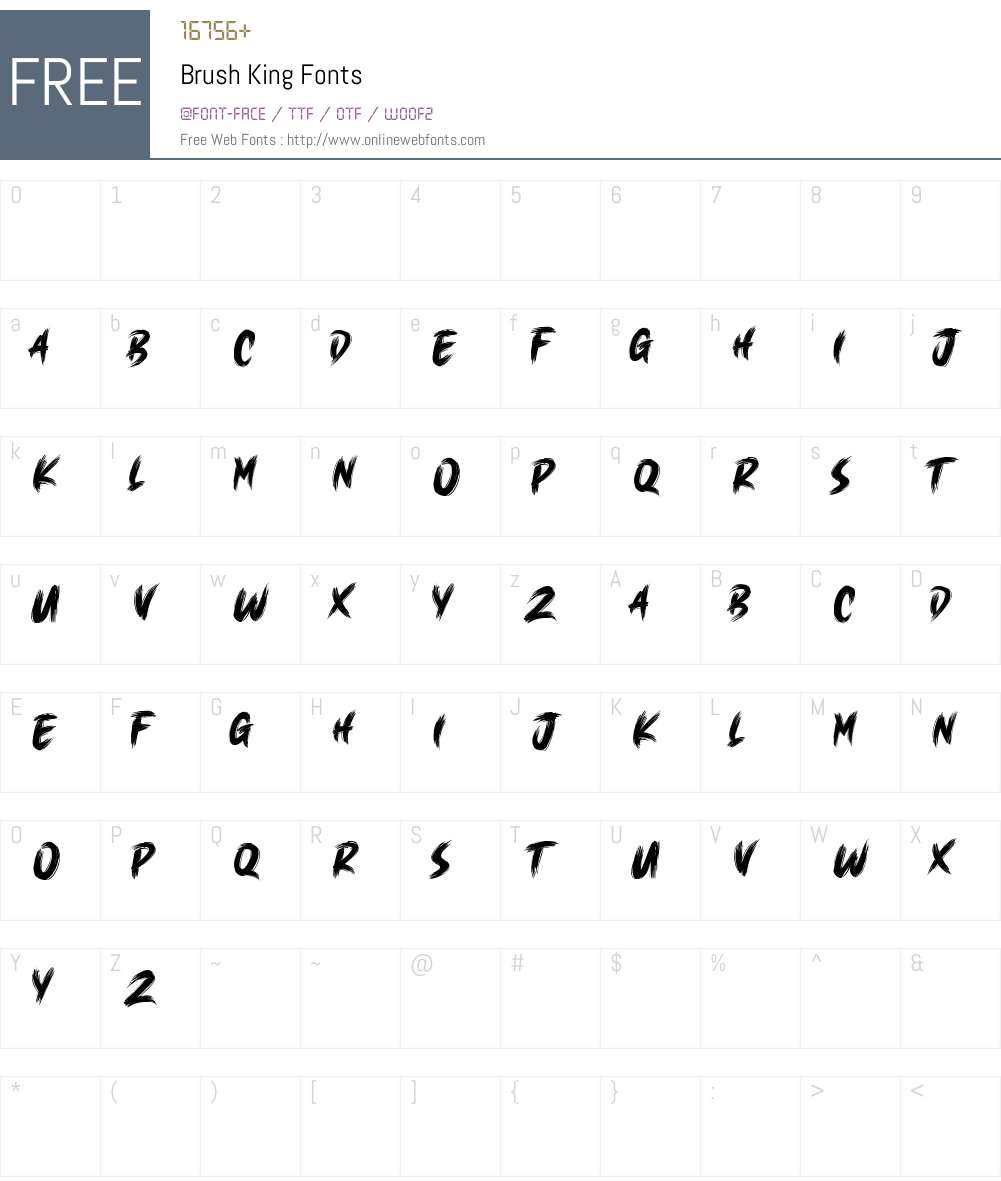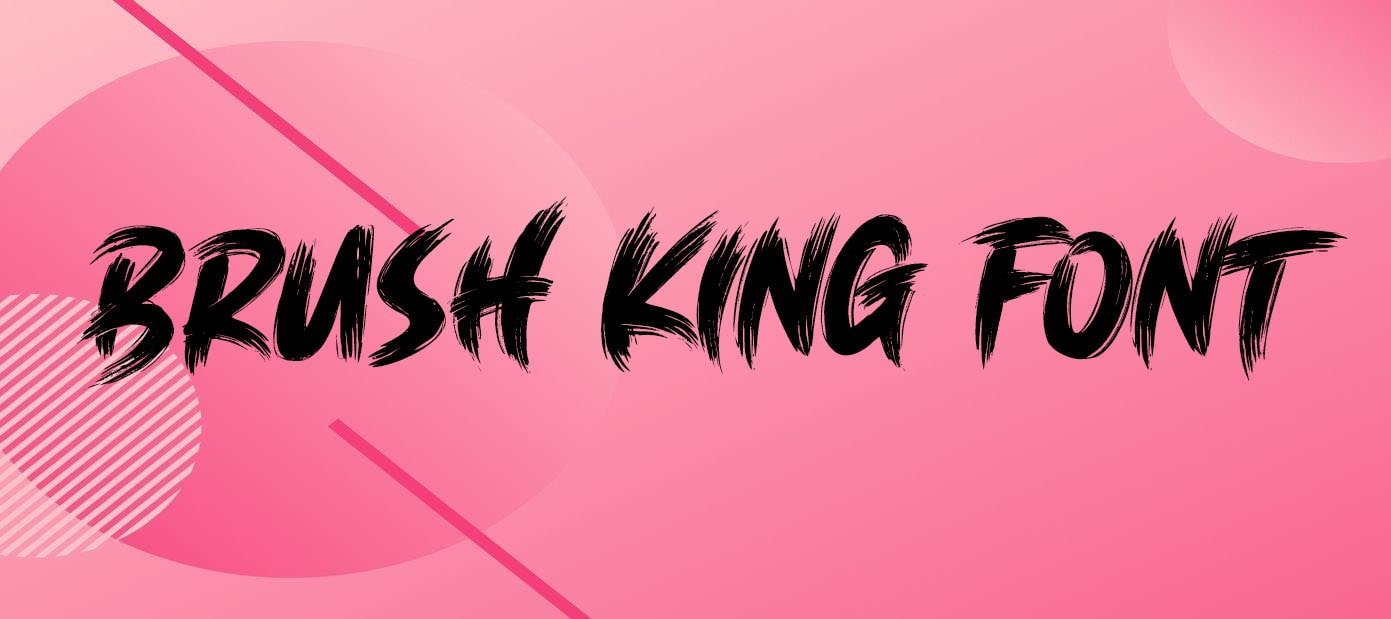
Brush King Font Numbers . It features extra attention to quick strokes and sharp details. This font is free for personal use. Brush king is a handwritten script font that features bold, flowing strokes that resemble brush strokes. Penggunaan font ini untuk keperluan komersil tanpa izin (dengan alasan apapun) akan dikenakan denda pelanggaran hak cipta $7000 atau sesuai dengan keputusan yang telah. Great for logo and other branding projects, art prints, posters or packaging design. Brush king font is a supercharged brush font bursting with energy. Font size brush king regular otf waterfall 117 characters Use the text generator tool below to preview brush king font, and create appealing text graphics with different colors and hundreds of text effects. The font has a unique rustic. Brush king is a cool, brushed and natural display font. A script font in a dry marker with speed and intimate touch.
Font size brush king regular otf waterfall 117 characters Use the text generator tool below to preview brush king font, and create appealing text graphics with different colors and hundreds of text effects. This font is free for personal use. Brush king is a handwritten script font that features bold, flowing strokes that resemble brush strokes. Brush king font is a supercharged brush font bursting with energy. It features extra attention to quick strokes and sharp details. The font has a unique rustic. Great for logo and other branding projects, art prints, posters or packaging design. Brush king is a cool, brushed and natural display font. A script font in a dry marker with speed and intimate touch.
Brush King Font Numbers Font size brush king regular otf waterfall 117 characters Brush king is a cool, brushed and natural display font. Font size brush king regular otf waterfall 117 characters This font is free for personal use. Brush king font is a supercharged brush font bursting with energy. Use the text generator tool below to preview brush king font, and create appealing text graphics with different colors and hundreds of text effects. Great for logo and other branding projects, art prints, posters or packaging design. The font has a unique rustic. Brush king is a handwritten script font that features bold, flowing strokes that resemble brush strokes. It features extra attention to quick strokes and sharp details. Penggunaan font ini untuk keperluan komersil tanpa izin (dengan alasan apapun) akan dikenakan denda pelanggaran hak cipta $7000 atau sesuai dengan keputusan yang telah. A script font in a dry marker with speed and intimate touch.
Brush King Font Free Download Brush King Font Numbers Penggunaan font ini untuk keperluan komersil tanpa izin (dengan alasan apapun) akan dikenakan denda pelanggaran hak cipta $7000 atau sesuai dengan keputusan yang telah. Great for logo and other branding projects, art prints, posters or packaging design. This font is free for personal use. Use the text generator tool below to preview brush king font, and create appealing text graphics. Brush King Font Numbers.
Brush King Font Download Free for Desktop & font Brush King Font Numbers Use the text generator tool below to preview brush king font, and create appealing text graphics with different colors and hundreds of text effects. Penggunaan font ini untuk keperluan komersil tanpa izin (dengan alasan apapun) akan dikenakan denda pelanggaran hak cipta $7000 atau sesuai dengan keputusan yang telah. Great for logo and other branding projects, art prints, posters or packaging. Brush King Font Numbers.
Brush Lettering Numbers. Modern Calligraphy, Handwritten Letters Stock Brush King Font Numbers It features extra attention to quick strokes and sharp details. Font size brush king regular otf waterfall 117 characters The font has a unique rustic. Brush king is a cool, brushed and natural display font. Great for logo and other branding projects, art prints, posters or packaging design. Brush king font is a supercharged brush font bursting with energy. Use. Brush King Font Numbers.
Brush King font by Subectype & Orenari FontRiver Brush King Font Numbers Brush king font is a supercharged brush font bursting with energy. A script font in a dry marker with speed and intimate touch. Penggunaan font ini untuk keperluan komersil tanpa izin (dengan alasan apapun) akan dikenakan denda pelanggaran hak cipta $7000 atau sesuai dengan keputusan yang telah. The font has a unique rustic. Brush king is a cool, brushed and. Brush King Font Numbers.
Brush King Font Numbers Font size brush king regular otf waterfall 117 characters Penggunaan font ini untuk keperluan komersil tanpa izin (dengan alasan apapun) akan dikenakan denda pelanggaran hak cipta $7000 atau sesuai dengan keputusan yang telah. Brush king is a handwritten script font that features bold, flowing strokes that resemble brush strokes. A script font in a dry marker with speed and intimate. Brush King Font Numbers.
Brush King free font Brush King Font Numbers Brush king is a handwritten script font that features bold, flowing strokes that resemble brush strokes. Great for logo and other branding projects, art prints, posters or packaging design. Brush king font is a supercharged brush font bursting with energy. This font is free for personal use. Penggunaan font ini untuk keperluan komersil tanpa izin (dengan alasan apapun) akan dikenakan. Brush King Font Numbers.
BRUSH KING / Brush Font (409425) Regular Font Bundles Brush King Font Numbers It features extra attention to quick strokes and sharp details. Great for logo and other branding projects, art prints, posters or packaging design. The font has a unique rustic. Brush king font is a supercharged brush font bursting with energy. Brush king is a cool, brushed and natural display font. Penggunaan font ini untuk keperluan komersil tanpa izin (dengan alasan. Brush King Font Numbers.
Brush King Font Download Free Free Fonts Vault Brush King Font Numbers A script font in a dry marker with speed and intimate touch. Font size brush king regular otf waterfall 117 characters Great for logo and other branding projects, art prints, posters or packaging design. Brush king font is a supercharged brush font bursting with energy. The font has a unique rustic. This font is free for personal use. It features. Brush King Font Numbers.
Brush King / Brush Font By Subectype TheHungryJPEG Brush King Font Numbers Use the text generator tool below to preview brush king font, and create appealing text graphics with different colors and hundreds of text effects. Penggunaan font ini untuk keperluan komersil tanpa izin (dengan alasan apapun) akan dikenakan denda pelanggaran hak cipta $7000 atau sesuai dengan keputusan yang telah. A script font in a dry marker with speed and intimate touch.. Brush King Font Numbers.